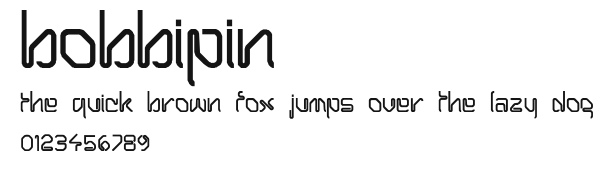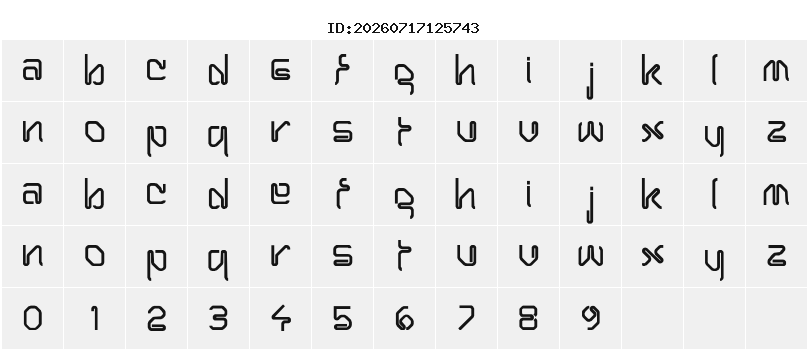
• Font Name: Bobbipin
• Full Font Name: Bobbipin
About Bobbipin.ttf
Bobbipin.ttf is a modern, elegant sans-serif font designed for ultimate readability and visual harmony. Perfect for branding, headlines, web design, and print materials.